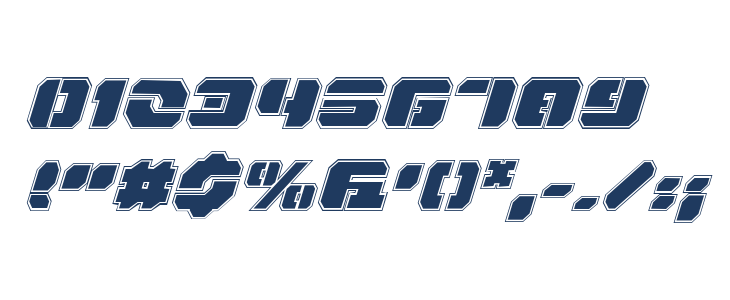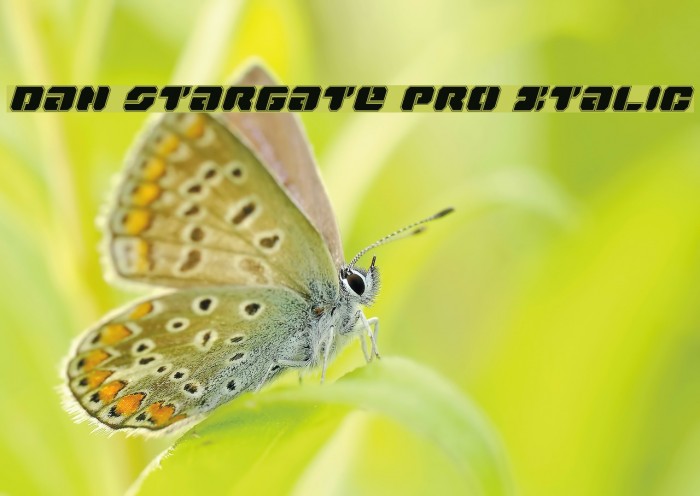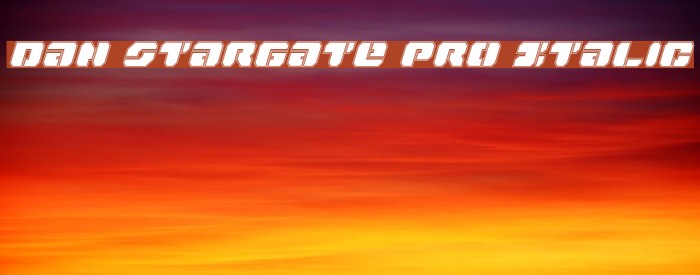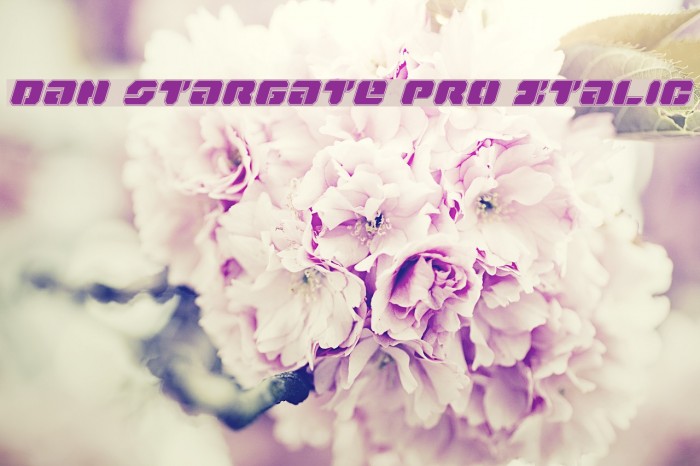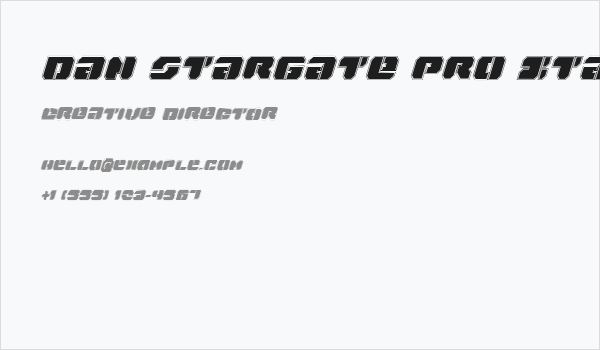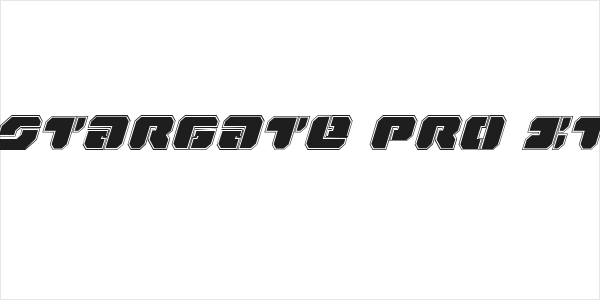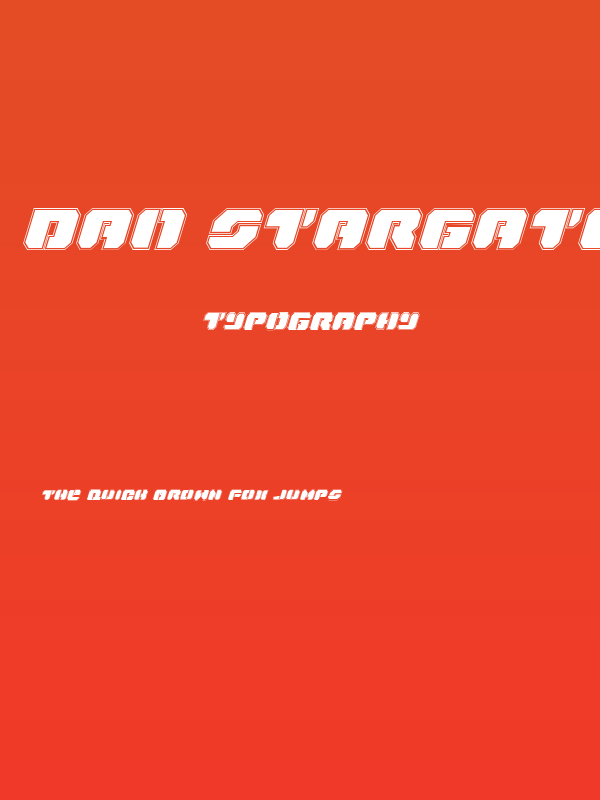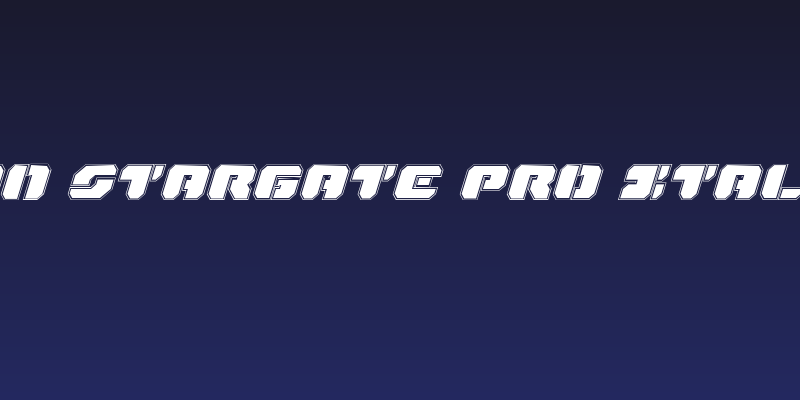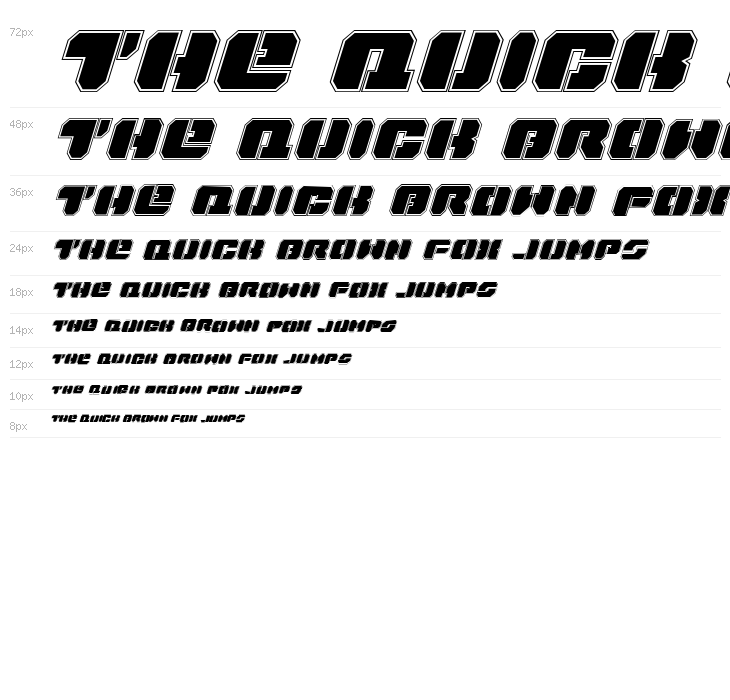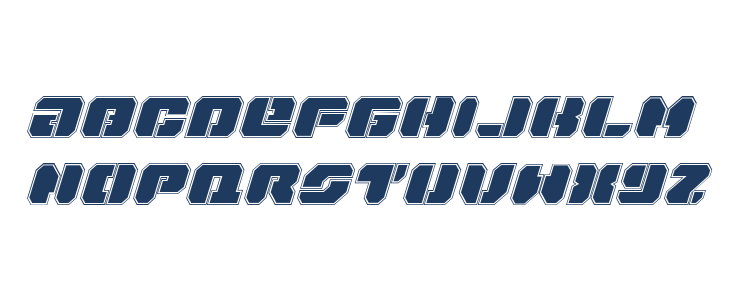
Dan Stargate Pro Italic Font
Dan Stargate Pro Italic Description
This font features a futuristic and bold design with a distinct italic slant. The characters are outlined with a thick border, giving them a three-dimensional appearance. The geometric shapes and sharp angles contribute to its modern and dynamic feel. Each letter and number is uniquely stylized, maintaining a consistent theme throughout the set. The special characters are equally bold and match the overall aesthetic, making this font suitable for eye-catching designs.
| Proposed Projects | Ideal for sci-fi themed projects, video game titles, movie posters, and branding that requires a modern, edgy look. |